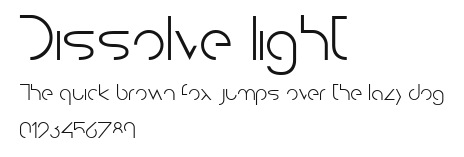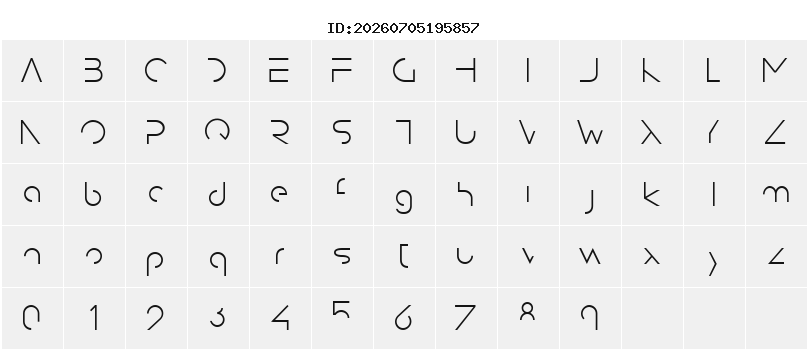
Dissolve light Preview
• Font Name: Dissolve light
• Full Font Name: Dissolvelight
• PostScript Name: Dissolvelight
• Character Count: 74
About Dissolve light.ttf
Dissolve light.ttf is a modern, elegant sans-serif font designed for ultimate readability and visual harmony. Perfect for branding, headlines, web design, and print materials.